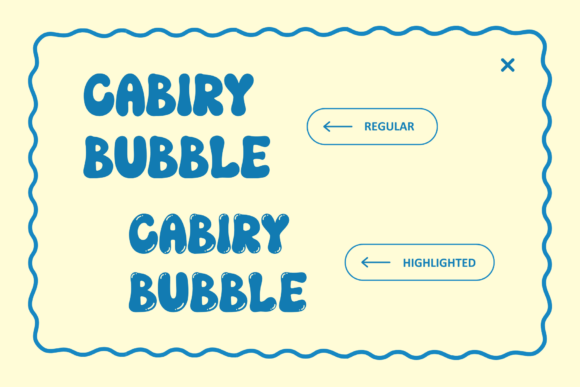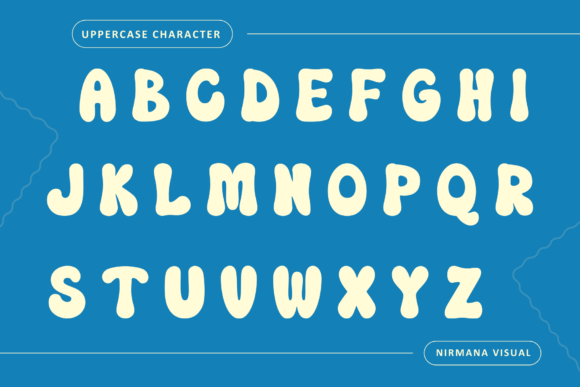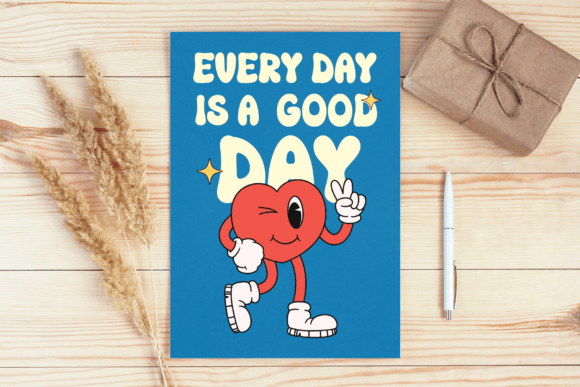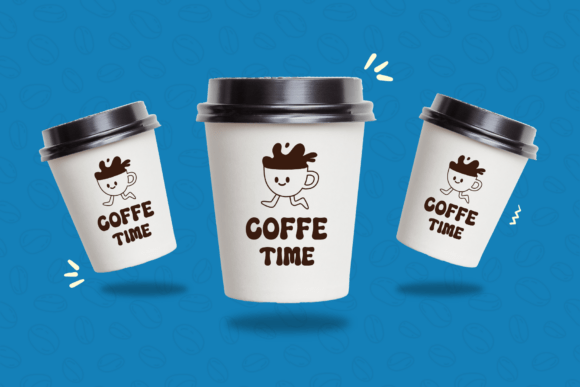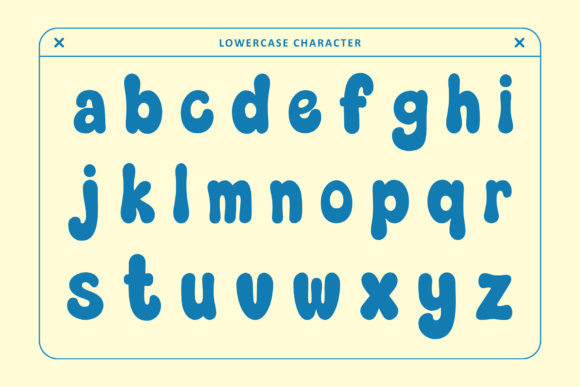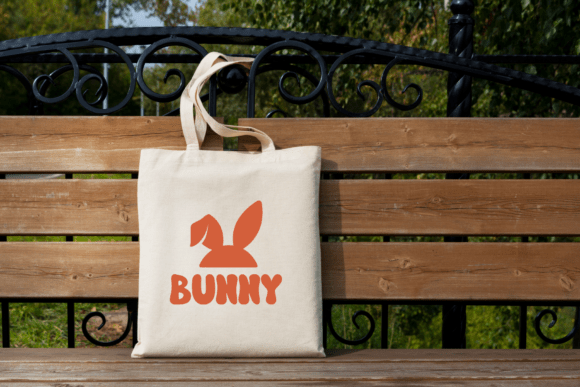
Cabiry Bubble Font: Add a Playful Touch to Your Designs
Are you looking for a font that can bring fun and energy to your projects? Look no further than Cabiry Bubble, a playful and vibrant bubble font designed to make your designs stand out. With its rounded, oversized letters and cheerful personality, Cabiry Bubble is perfect for crafting eye-catching posters, children’s designs, logos, and social media graphics.
The Characteristics of Cabiry Bubble Font
Cabiry Bubble font is a unique and dynamic typeface that is sure to capture the attention of your audience. Its key characteristics include:
- Rounded and oversized letters: The font features rounded and oversized letters that give it a playful and bubbly feel.
- Cheerful personality: Cabiry Bubble has a cheerful personality that makes it perfect for designs that require a fun and energetic vibe.
- Bubbly and dynamic style: The font’s bubbly and dynamic style makes it ideal for conveying a sense of joy and creativity.
Uses of Cabiry Bubble Font
Cabiry Bubble font is a versatile typeface that can be used in a variety of design projects, including:
- Posters: Use Cabiry Bubble to create eye-catching posters that grab the attention of your audience.
- Children’s designs: The font’s playful and fun personality makes it perfect for children’s designs, such as book covers, activity sheets, and more.
- Logos: Cabiry Bubble can be used to create unique and memorable logos that showcase your brand’s personality.
- Social media graphics: Use the font to create engaging social media graphics that stand out from the crowd.
Why Choose Cabiry Bubble Font?
There are many reasons why you should choose Cabiry Bubble font for your next design project. Here are a few:
- Unique and playful style: Cabiry Bubble has a unique and playful style that sets it apart from other fonts.
- Easily readable: The font is easily readable, making it perfect for use in headlines and decorative text.
- Versatile: Cabiry Bubble can be used in a variety of design projects, from posters to social media graphics.
- Fun and energetic: The font’s fun and energetic personality makes it perfect for designs that require a playful touch.
Tips for Using Cabiry Bubble Font
Here are a few tips for using Cabiry Bubble font in your designs:
- Use it for headlines: Cabiry Bubble is perfect for use in headlines, where its playful and energetic personality can shine.
- Pair it with other fonts: The font pairs well with other fonts, making it easy to create a unique and visually appealing design.
- Experiment with colors: Cabiry Bubble looks great in a variety of colors, so don’t be afraid to experiment and find the perfect color for your design.
- Use it sparingly: While Cabiry Bubble is a fun and energetic font, it can be overwhelming if used too much. Use it sparingly to create a balanced design.
Cabiry Bubble font is a playful and vibrant bubble font that is perfect for designers and crafters looking to add a fun and energetic touch to their projects. With its rounded, oversized letters and cheerful personality, Cabiry Bubble is sure to bring joy and creativity to your designs. Whether used for headlines or decorative text, Cabiry Bubble is a versatile typeface that is sure to make your designs stand out.
Get Creative with Cabiry Bubble Font
So why wait? Get creative with Cabiry Bubble font today and bring a playful touch to your designs. With its unique and dynamic style, Cabiry Bubble is sure to inspire your creativity and help you create designs that are truly unforgettable.